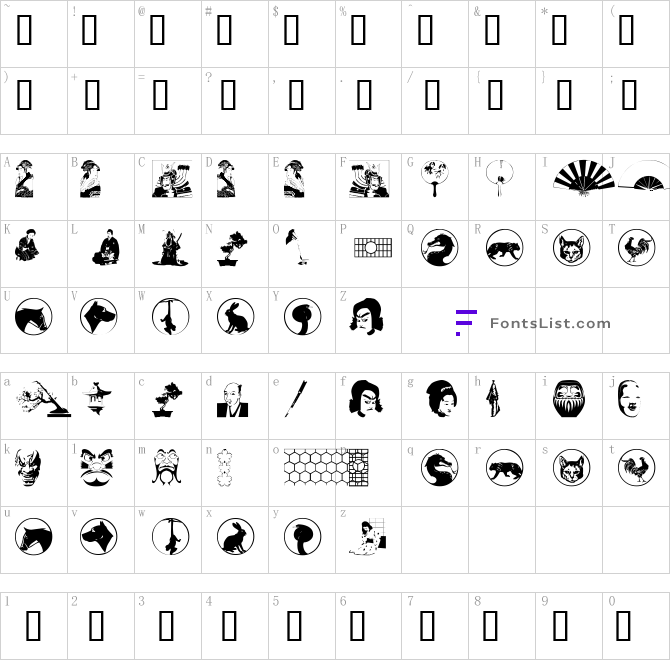
- Font Name:Asian Dings
Asian-Dings.ttf is a very beautiful artistic font, Asian-Dings.ttf is widely used in the design and printing of various books and pictures,Asian-Dings.ttf has a strong visual impact,Asian-Dings.ttf is a commonly used font in newspapers, magazines and books, and is used in posters, e-commerce Poster design, store design, logo design, font design and other fields.Asian-Dings.